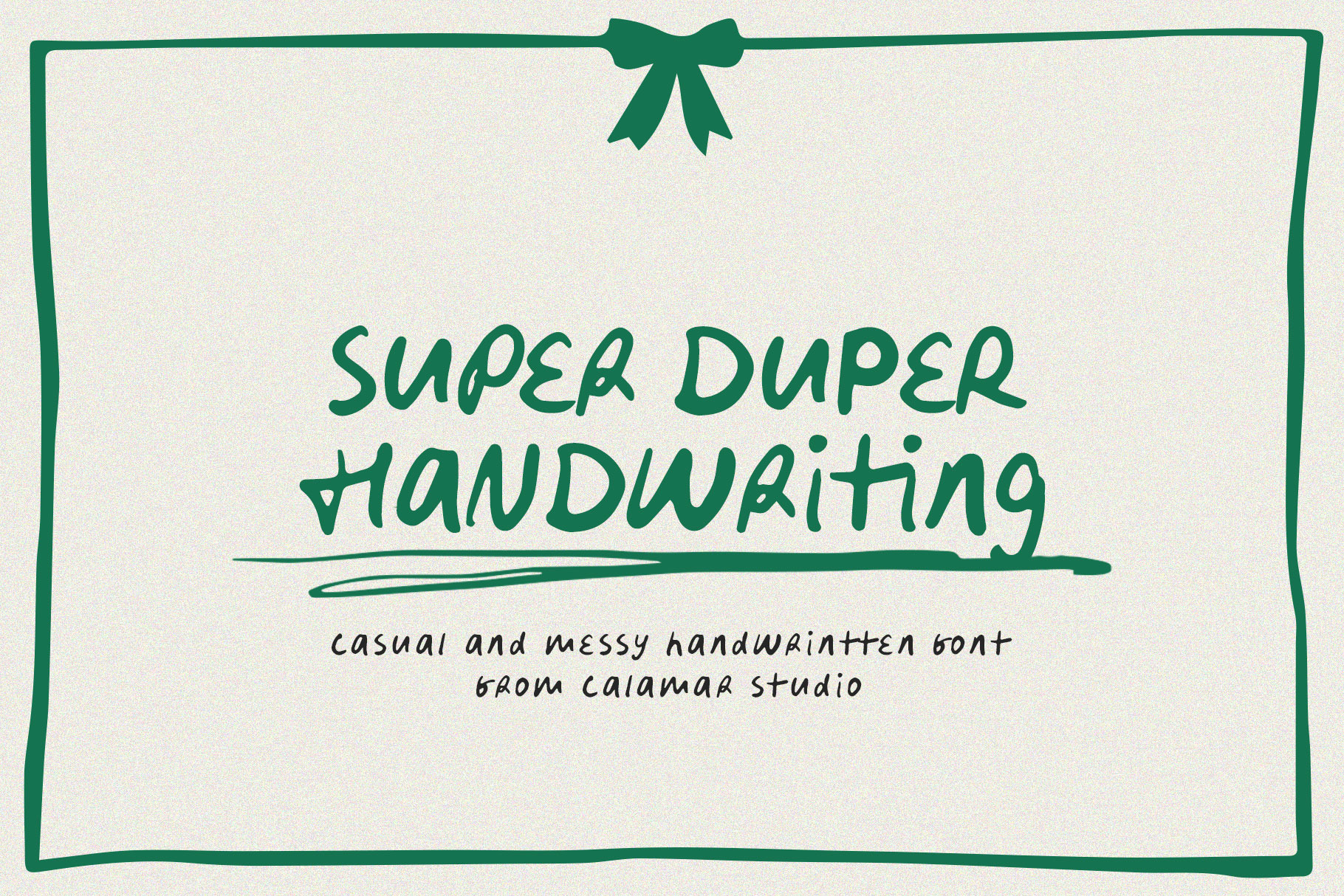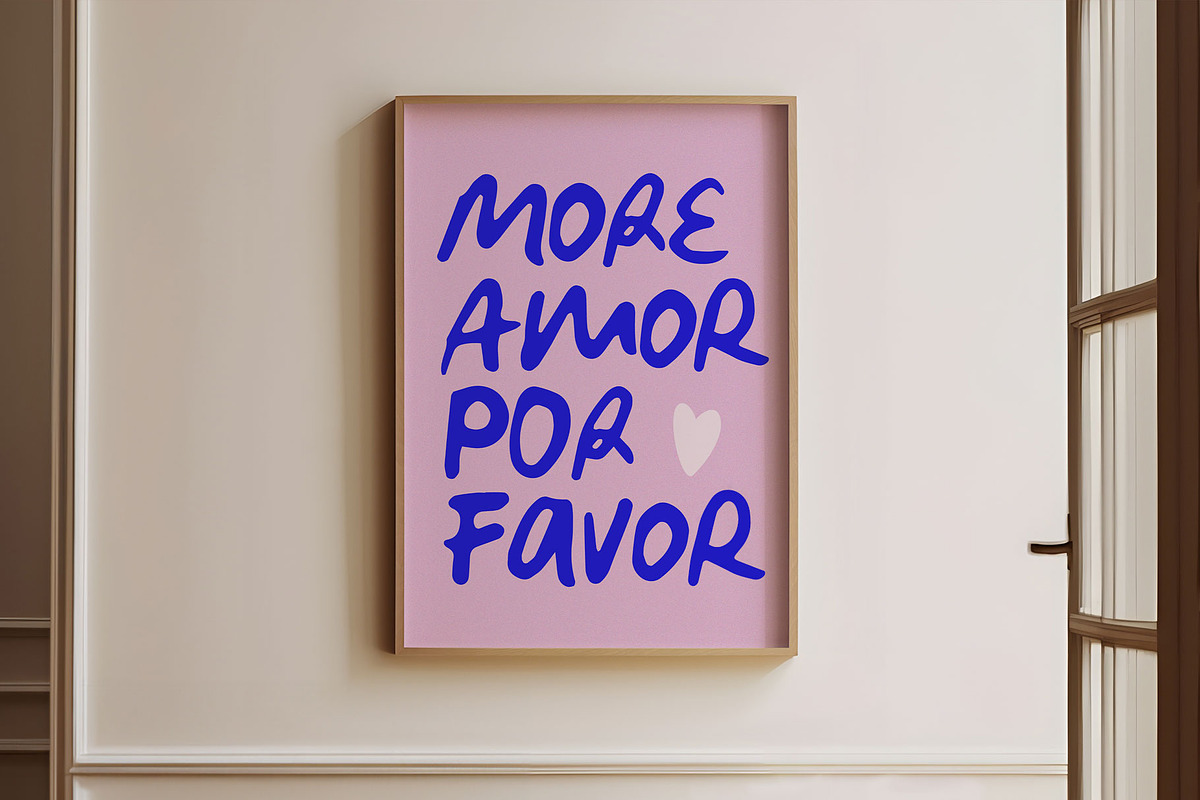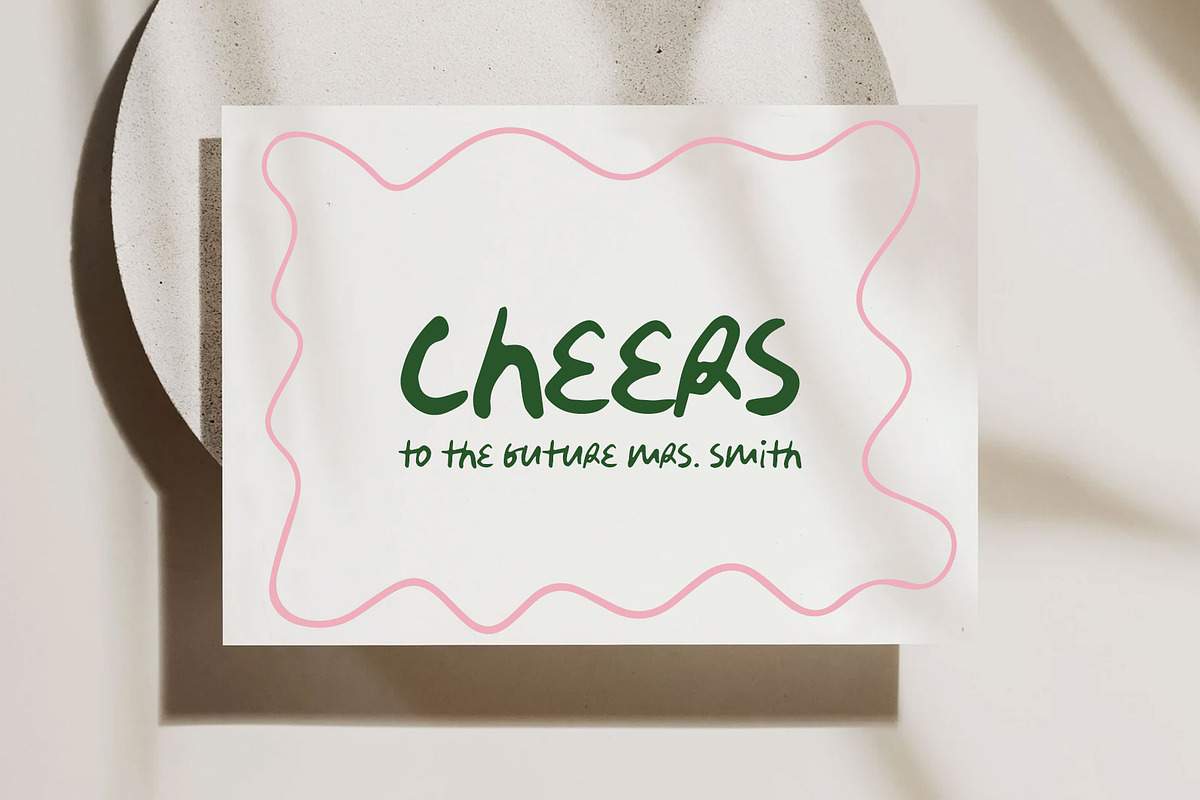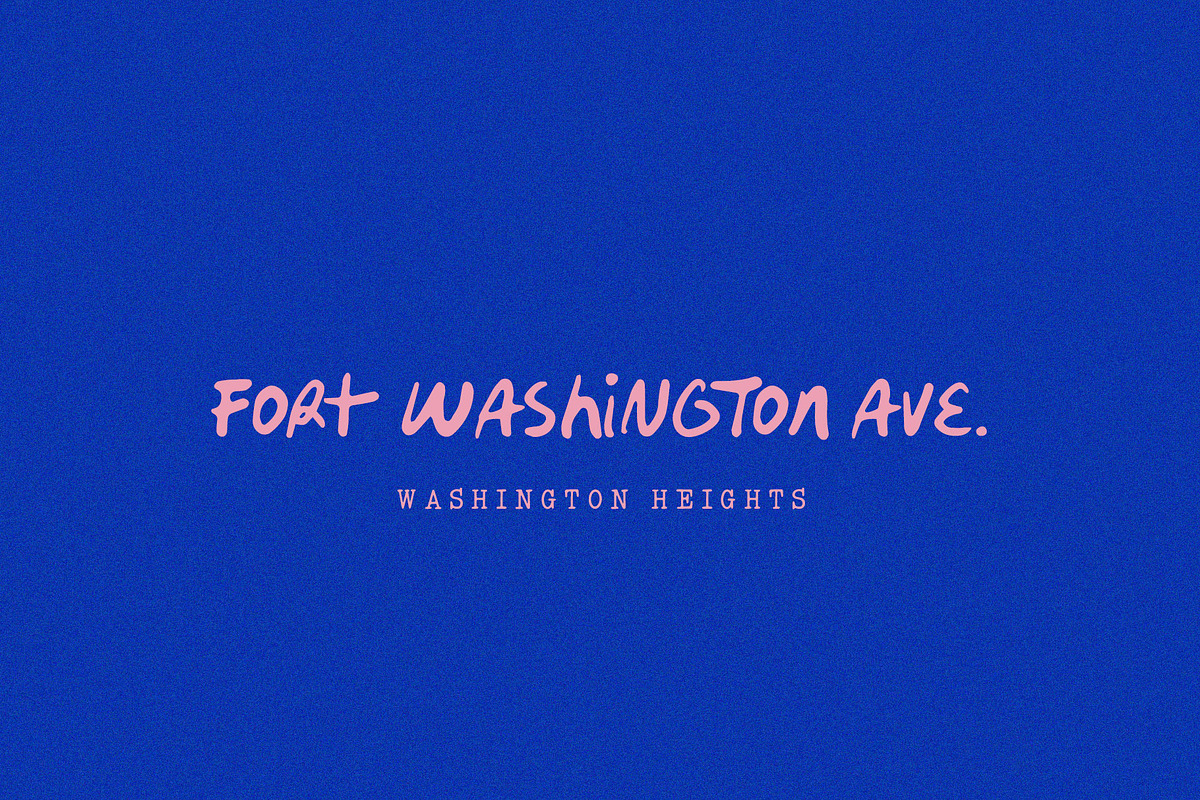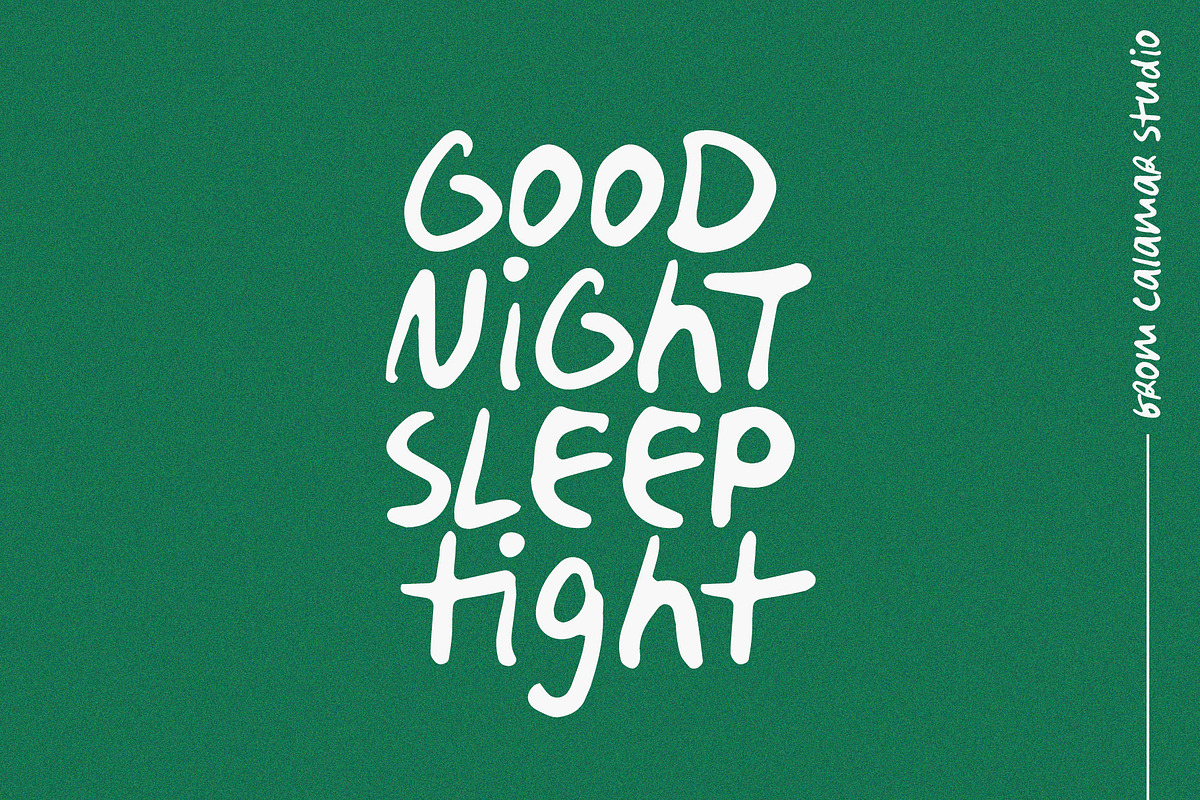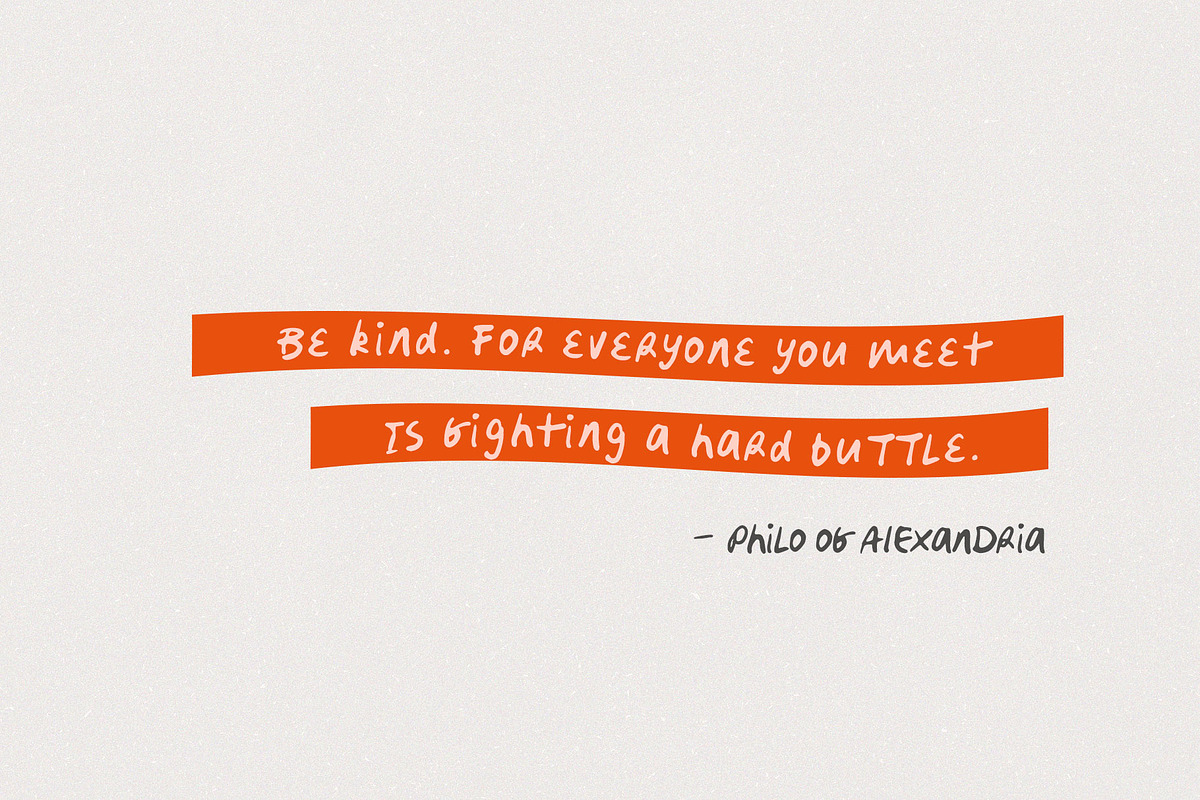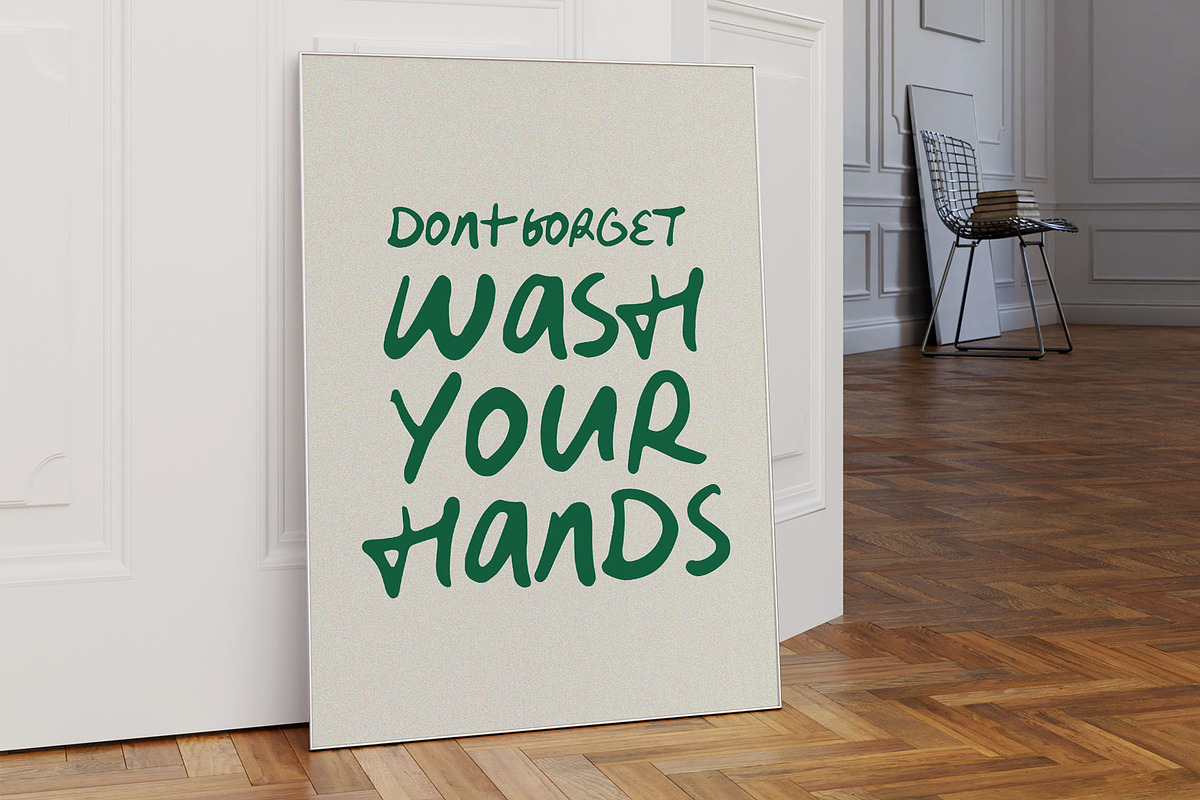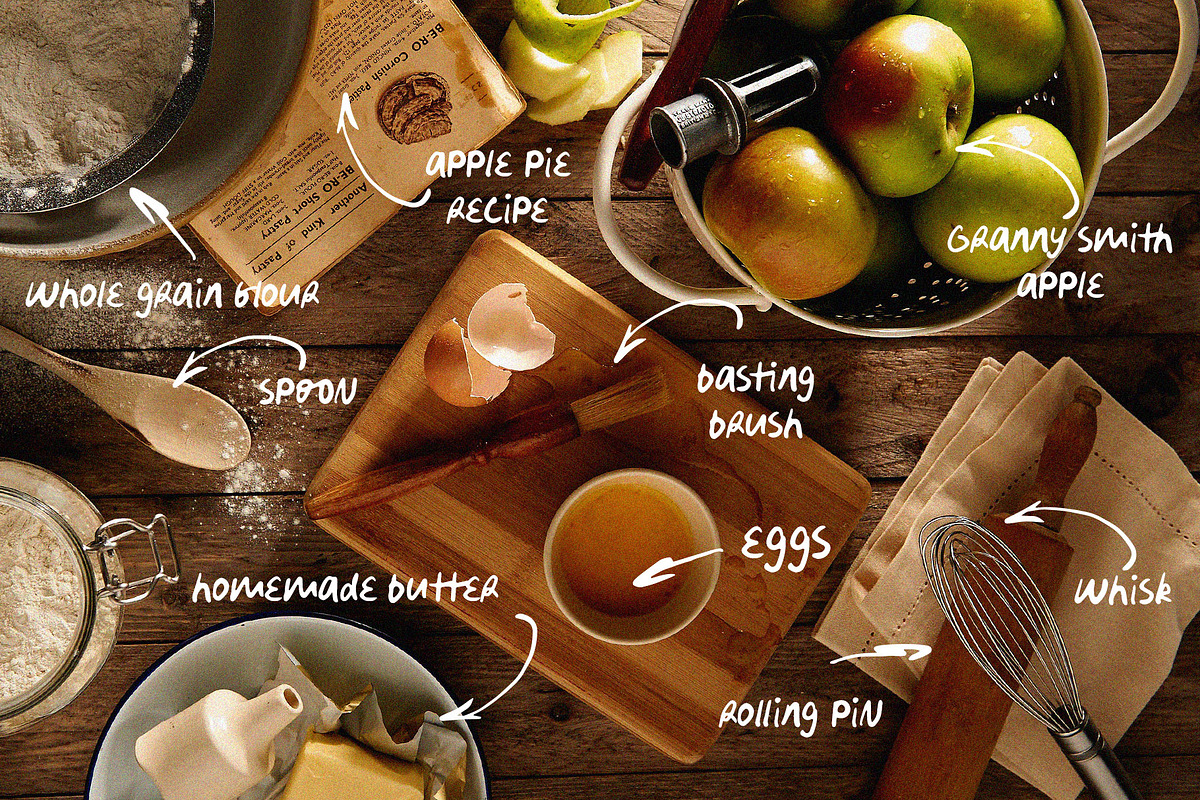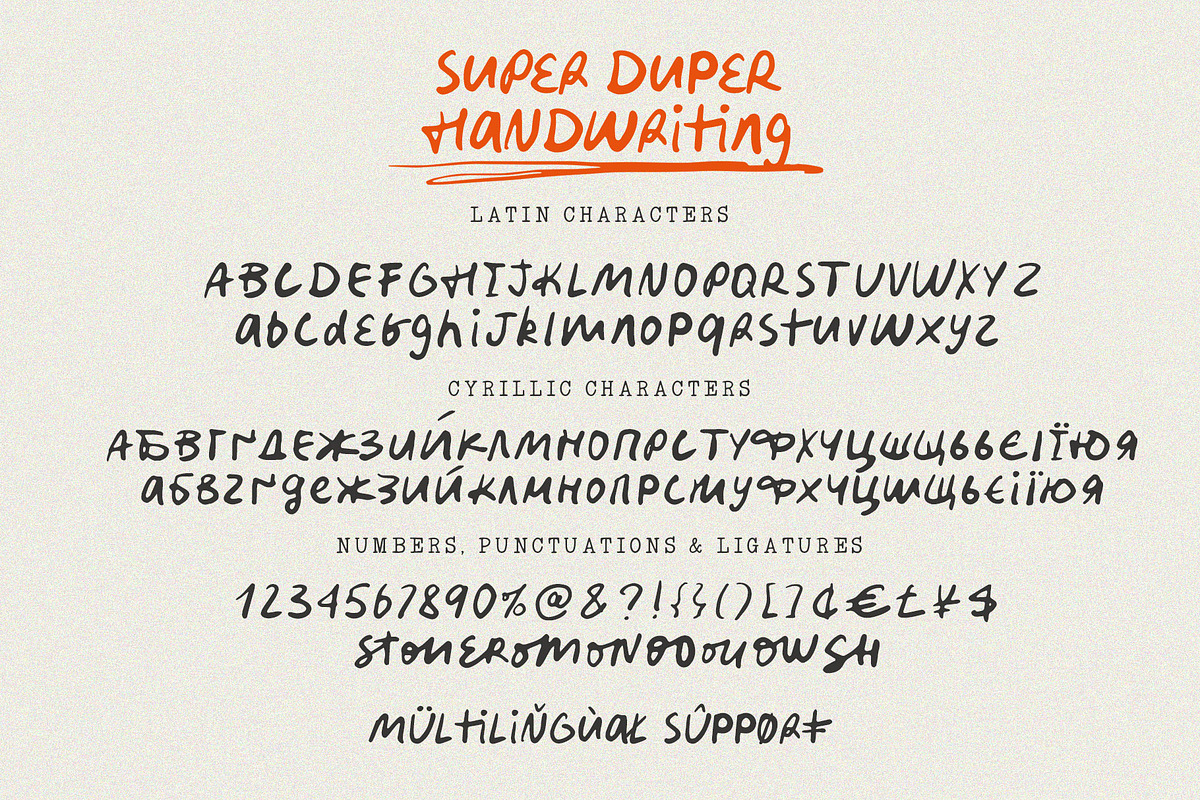
Messy Handwriting Font | Super Duper
Introducing you the new handwritten font that looks like a messy and realistic handwriting - Super Duper Handwriting.
It will look great for greeting cards, stickers, modern wall arts, instagram posts, quotes, playful branding. You don't need any special programs to use this font. All is super easy. Just type the lower or uppercase letters and create your design.
Pay attention, although the font comes with Cyrillic glyphs it doesn't support all Russian alphabet characters. Font was created for Ukrainian projects. Maybe they will be added in the future.